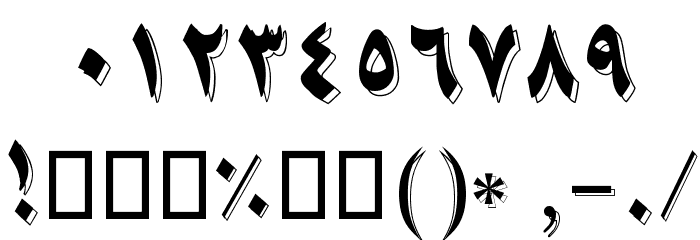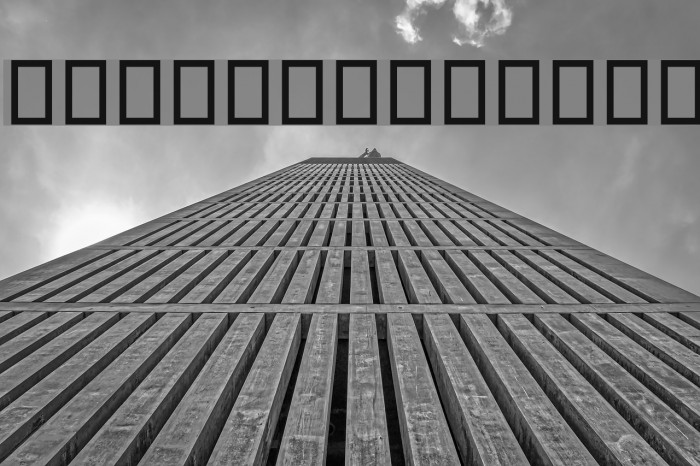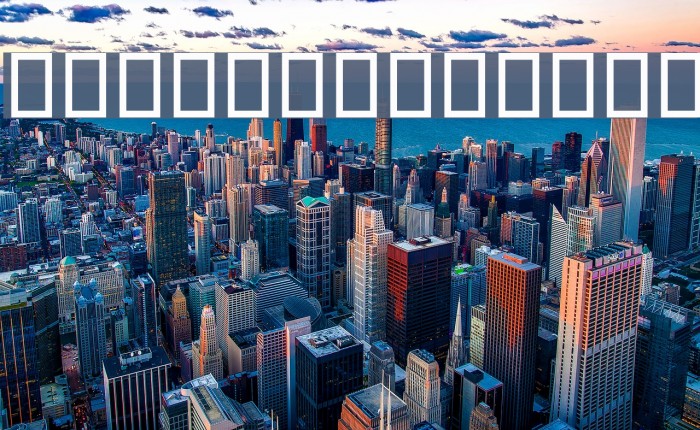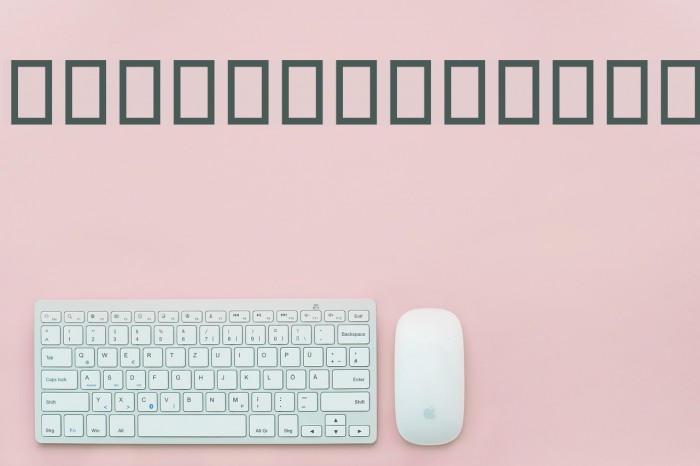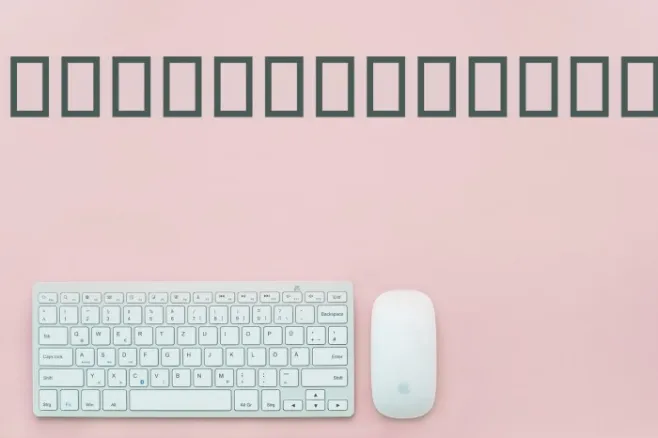
Sahar Font
This font features a unique and artistic design with a calligraphic influence, characterized by its flowing curves and dynamic strokes. The numbers are particularly stylized, with each digit exhibiting a distinct flair that adds to the overall decorative appearance. The special characters maintain the same artistic style, making them stand out with their bold and creative forms. This font is ideal for projects that require a touch of elegance and creativity, such as invitations, posters, or branding materials. Its distinctive style ensures that any text set in this font will capture attention and convey a sense of sophistication.
An artistic and calligraphic font with flowing curves and dynamic strokes.
- Proposed Projects: Ideal for invitations, posters, branding materials, and any creative projects requiring elegance.